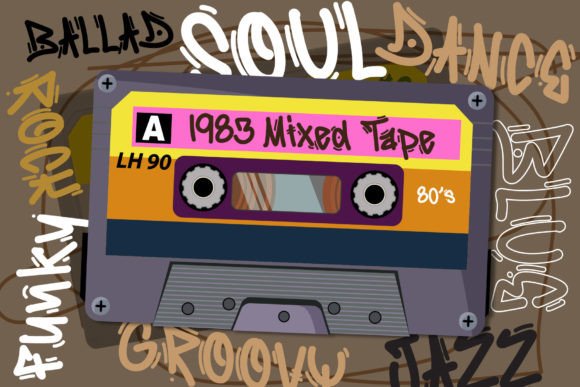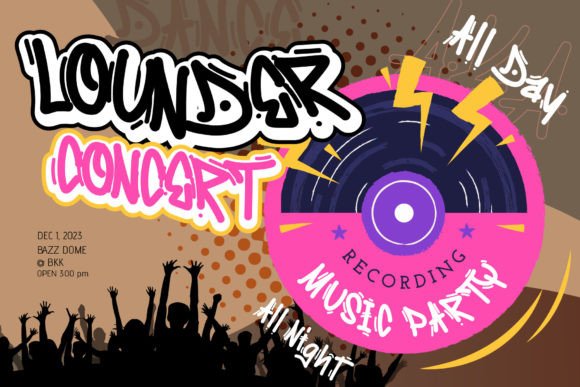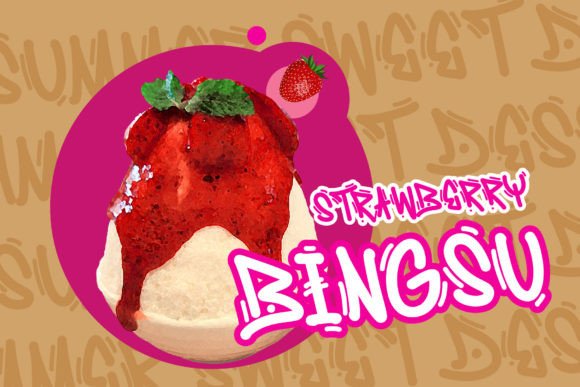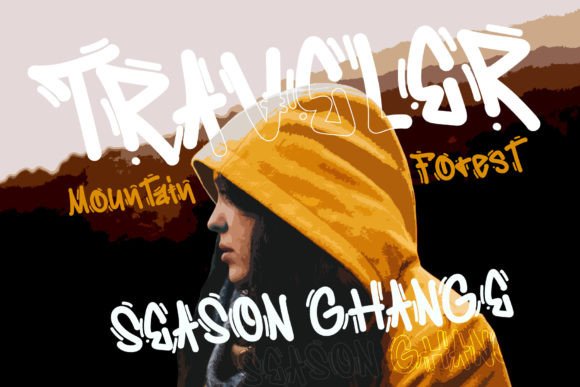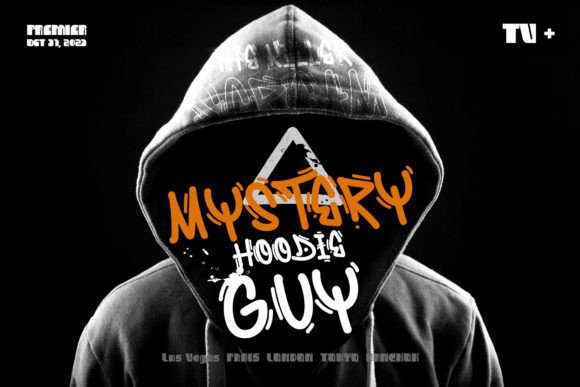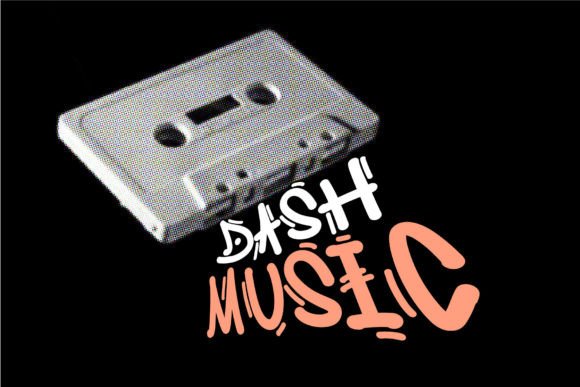
Unleash Your Creativity with Dash Musick Font: The Ultimate Graffiti-Styled Display Font
Are you a designer, crafty enthusiast, or simply someone who loves to experiment with typography? Look no further! We’re excited to introduce you to Dash Musick Font, an awesome graffiti-styled display font that’s taking the design world by storm. With its cool street art vibe, this font is perfect for creating eye-catching designs that pop. In this article, we’ll dive into the features, benefits, and uses of Dash Musick Font, and explore how it can elevate your design game.
What is Dash Musick Font?
Dash Musick Font is a unique, graffiti-inspired display font that’s designed to add a touch of urban flair to your designs. Its bold, edgy, and dynamic style makes it perfect for creating attention-grabbing headlines, logos, and advertisements. The font’s street art vibe is sure to resonate with anyone who loves the raw, unbridled energy of graffiti.
Key Features of Dash Musick Font
- Graffiti-styled design: Dash Musick Font boasts a bold, graffiti-inspired design that’s sure to make your designs stand out.
- Street art vibe: The font’s cool, urban aesthetic is perfect for designs that require a touch of edginess.
- Display font: Dash Musick Font is designed specifically for display purposes, making it ideal for headlines, titles, and short texts.
- Highly versatile: This font can be used for a wide range of design projects, from t-shirts and sportswear to logos, advertisements, and more.
Uses of Dash Musick Font
Dash Musick Font is an incredibly versatile font that can be used for various design projects, including:
- T-shirts and sportswear: Add a touch of street art style to your apparel designs with Dash Musick Font.
- Logos and branding: Create bold, eye-catching logos that make a statement with this graffiti-styled font.
- Advertisements: Use Dash Musick Font to create attention-grabbing headlines and titles for your ads.
- Clothing and accessories: Add a cool, urban touch to your designs for clothing, hats, bags, and more.
- Posters and flyers: Make your posters and flyers stand out with the bold, edgy style of Dash Musick Font.
Benefits of Using Dash Musick Font
So, why choose Dash Musick Font for your design projects? Here are just a few benefits:
- Unique style: Dash Musick Font offers a fresh, unique style that’s sure to set your designs apart.
- Easily readable: Despite its bold, graffiti-styled design, Dash Musick Font is surprisingly easy to read, making it perfect for display purposes.
- High-quality design: This font is designed with high-quality, crisp lines that ensure it looks great in any size or resolution.
- Time-saving: With Dash Musick Font, you can create professional-looking designs in no time, saving you hours of design time.
Tips for Using Dash Musick Font
To get the most out of Dash Musick Font, here are a few tips:
- Experiment with colors: The bold, graffiti-styled design of Dash Musick Font lends itself well to bright, bold colors.
- Play with textures: Add an extra layer of depth to your designs by experimenting with textures and patterns.
- Keep it simple: Don’t be afraid to keep your design simple and clean, allowing the font to take center stage.